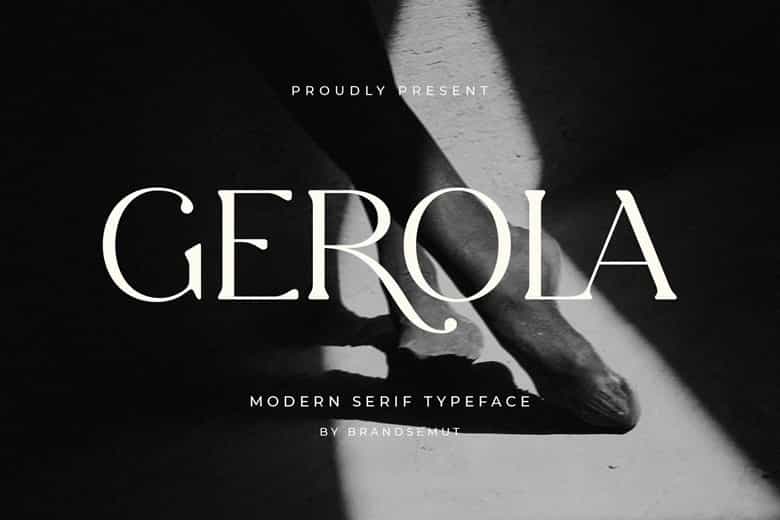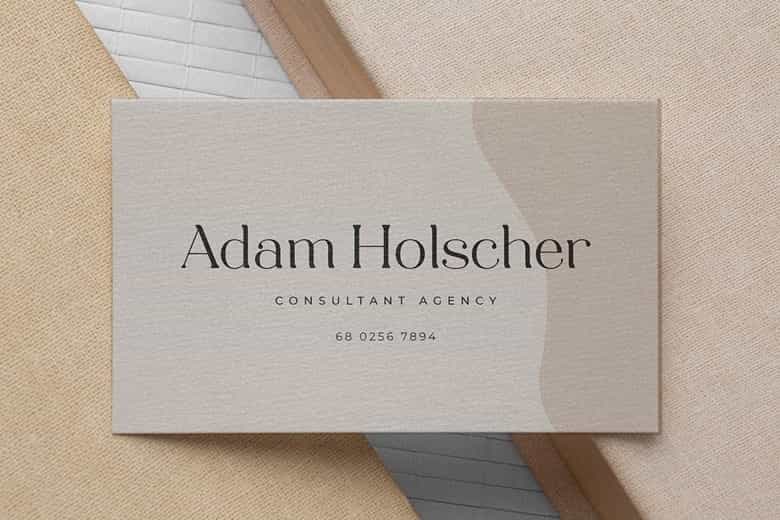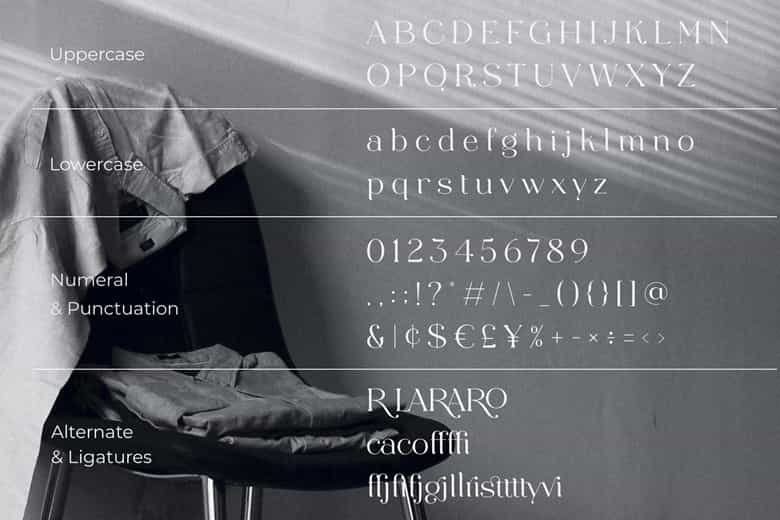
Gerola is a clean and elegant serif font which is suitable for use in today’s world. You will fall in love with its style versatility and you can use it to make beautiful wedding invitations, stationery arts, post on social media and many other things.